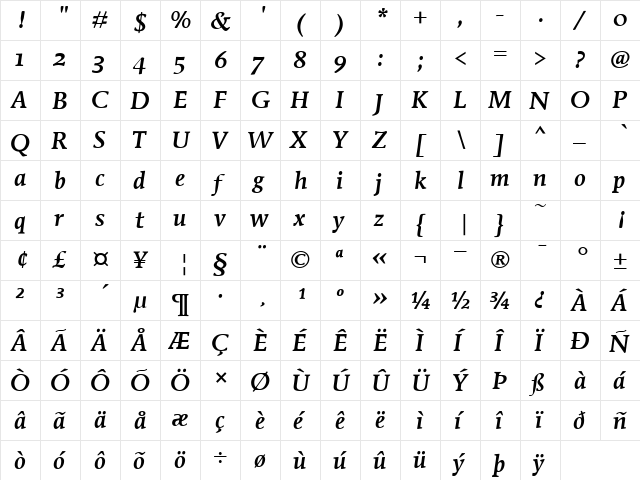
MendozaITCMediumOS RomanItalic
Design Context for MendozaITCMediumOS Typeface
MendozaITCMediumOS is a composed and adaptable typeface that performs quietly and consistently across a wide range of design contexts. The slanted form adds forward momentum and visual energy.